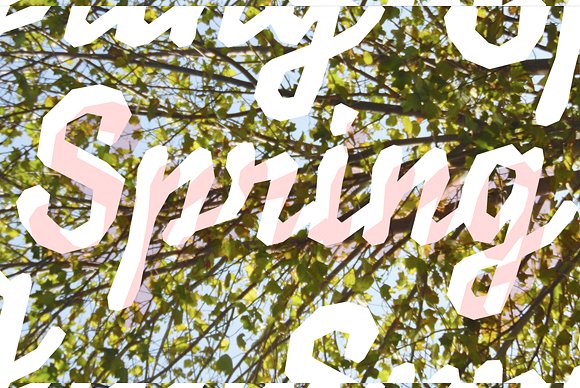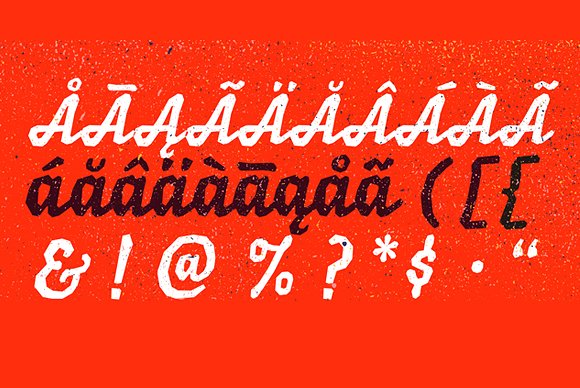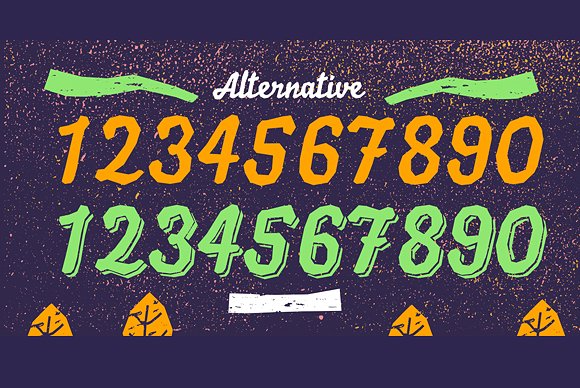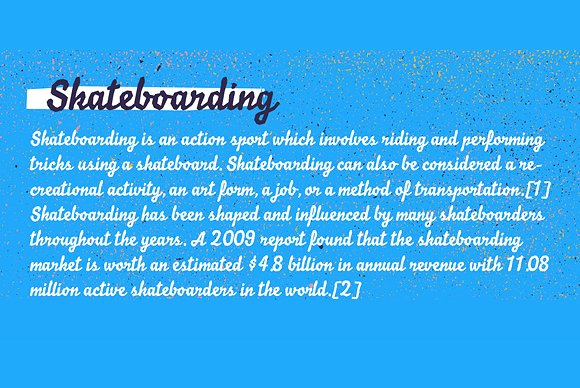
Introducing Balzac Font: A Heavy Rough Script with a Vintage Charm
Are you a designer or crafter looking for a unique and eye-catching font to add to your creative projects? Look no further than Balzac Font, a heavy rough script with an alternate set of numbers and a set of ornaments. Created by Alejandro Leiva from Rodrigo Typo, this font is sure to make a statement.
The Story Behind Balzac Font
Balzac Font is a carefully crafted typeface that draws inspiration from classic scripts and vintage typography. With its heavy and rough texture, this font exudes a sense of ruggedness and character, making it perfect for designs that require a touch of elegance and sophistication.
The font comes with an alternate set of numbers, adding an extra layer of versatility to its design. Whether you’re working on a logo, a poster, or a packaging design, Balzac Font is sure to provide you with the creative freedom to experiment and push the boundaries of typography.
Key Features of Balzac Font
- Heavy Rough Script: Balzac Font features a bold and rugged script design that’s perfect for making a statement.
- Alternate Set of Numbers: The font comes with an alternate set of numbers, giving you more flexibility and creative control.
- Ornaments: Balzac Font also includes a set of ornaments, allowing you to add an extra touch of elegance and sophistication to your designs.
- Carefully Crafted: Created by Alejandro Leiva from Rodrigo Typo, Balzac Font is a testament to meticulous design and attention to detail.
What Makes Balzac Font Unique?
So, what sets Balzac Font apart from other fonts on the market? For starters, its unique blend of ruggedness and elegance makes it a versatile design element that can be used in a variety of creative projects.
Additionally, the font’s alternate set of numbers and ornaments provide a level of customization that’s hard to find in other fonts. Whether you’re a designer looking to create a cohesive brand identity or a crafter looking to add a personal touch to your work, Balzac Font has got you covered.
How to Use Balzac Font in Your Designs
Balzac Font is perfect for a wide range of design applications, from logos and posters to packaging and branding. Here are a few ideas to get you started:
- Logo Design: Use Balzac Font to create a bold and eye-catching logo that’s sure to make a statement.
- Poster Design: Add a touch of elegance and sophistication to your posters with Balzac Font’s heavy rough script and ornaments.
- Packaging Design: Use Balzac Font to create custom packaging that’s both functional and visually appealing.
In conclusion, Balzac Font is a unique and versatile typeface that’s perfect for designers and crafters looking to add a touch of elegance and sophistication to their creative projects. With its heavy rough script, alternate set of numbers, and ornaments, this font is sure to provide you with the creative freedom to experiment and push the boundaries of typography.